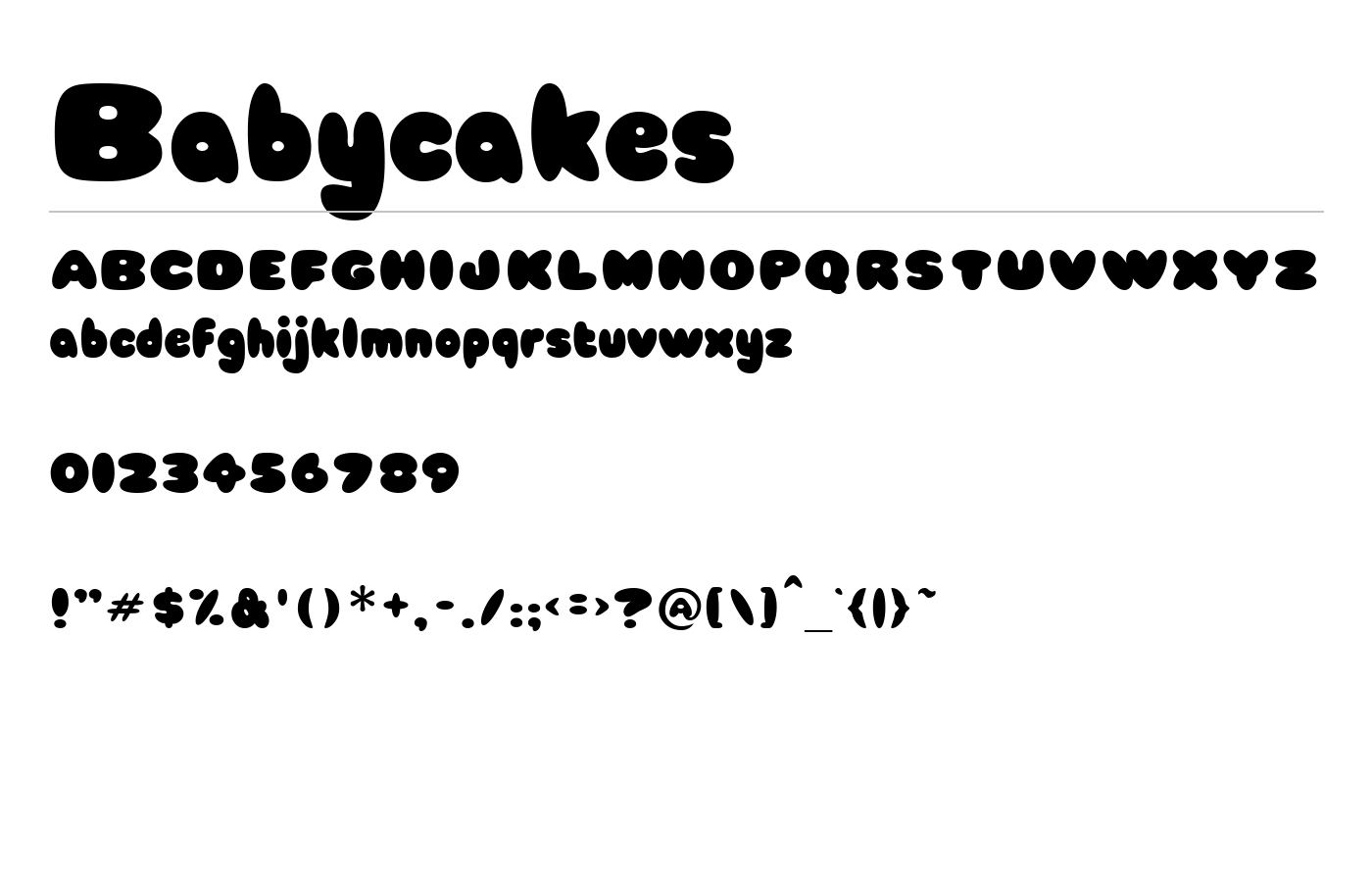
Babycakes is a playful and bold sans serif font characterized by its thick, rounded letterforms and bubbly appearance. Its heavy weight and soft, almost cartoon-like shapes give it a friendly, fun vibe perfect for children’s designs, informal branding, or any project that wants to evoke warmth and whimsy. This font works best in headlines, logos, and packaging where a joyful, approachable mood is desired.
Babycakes Font